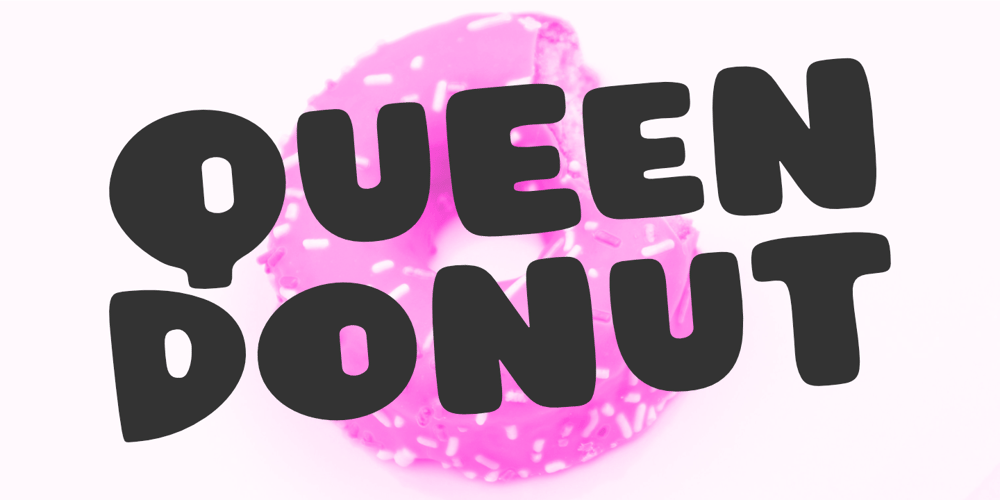
Queen Donut Font Family was designed by Aldy Sidik and published by Epiclinez. Queen Donut contains 1 styles and family package options. Crafting with Queen Donut is a breeze as it offers a wide range of creative possibilities. Whether you’re working on party invitations, greeting cards, or digital graphics, this font will bring your ideas to life in a bold and eye-catching way. Its versatility makes it perfect for any project that calls for a touch of fun and flair.Queen Donut features : Standard Latin Numbers, symbols, and punctuations Multilingual Support. Fully accessible without additional design software Simple Installations Works on PC & Mac Thank You.